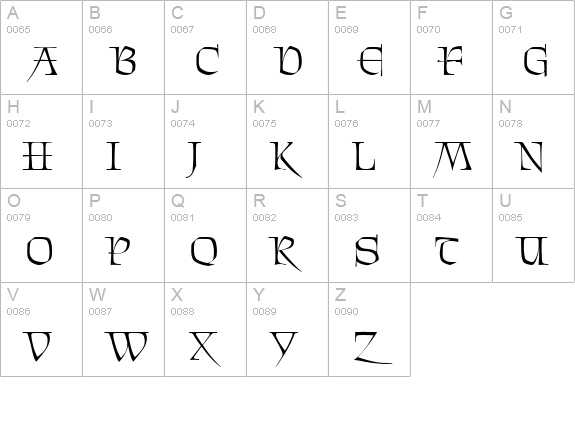
Patrick Regular Font Details
Patrick Regular is the standard, neutral variant in the Patrick typeface family \xE2\x80\x94 well suited to general body text, paragraphs, and standard typographic work.
Introducing Patrick Regular font, a versatile and timeless typeface that is sure to elevate any project. With its clean lines and classic design, Patrick Regular captures the essence of sophistication and professionalism. This font is perfect for a wide range of applications, from branding and logo design to editorial layouts and web graphics. Its balanced letterforms and legibility make it a top choice for both print and digital mediums. One of the standout features of Patrick Regular is its extensive character set, offering support for multiple languages and special characters. This ensures that your message can be effectively communicated to diverse audiences around the world. But what truly sets Patrick Regular apart is that it is available for free! Yes, you heard that right. You can freely download this amazing font at FontsMarket.com. Whether you're a designer on a budget or just looking to experiment with different typefaces, Patrick Regular is a fantastic choice that won't break the bank. So why wait? Enhance your projects with the elegance and versatility of Patrick Regular. Download it for free today at FontsMarket.com and unlock a world of creative possibilities.